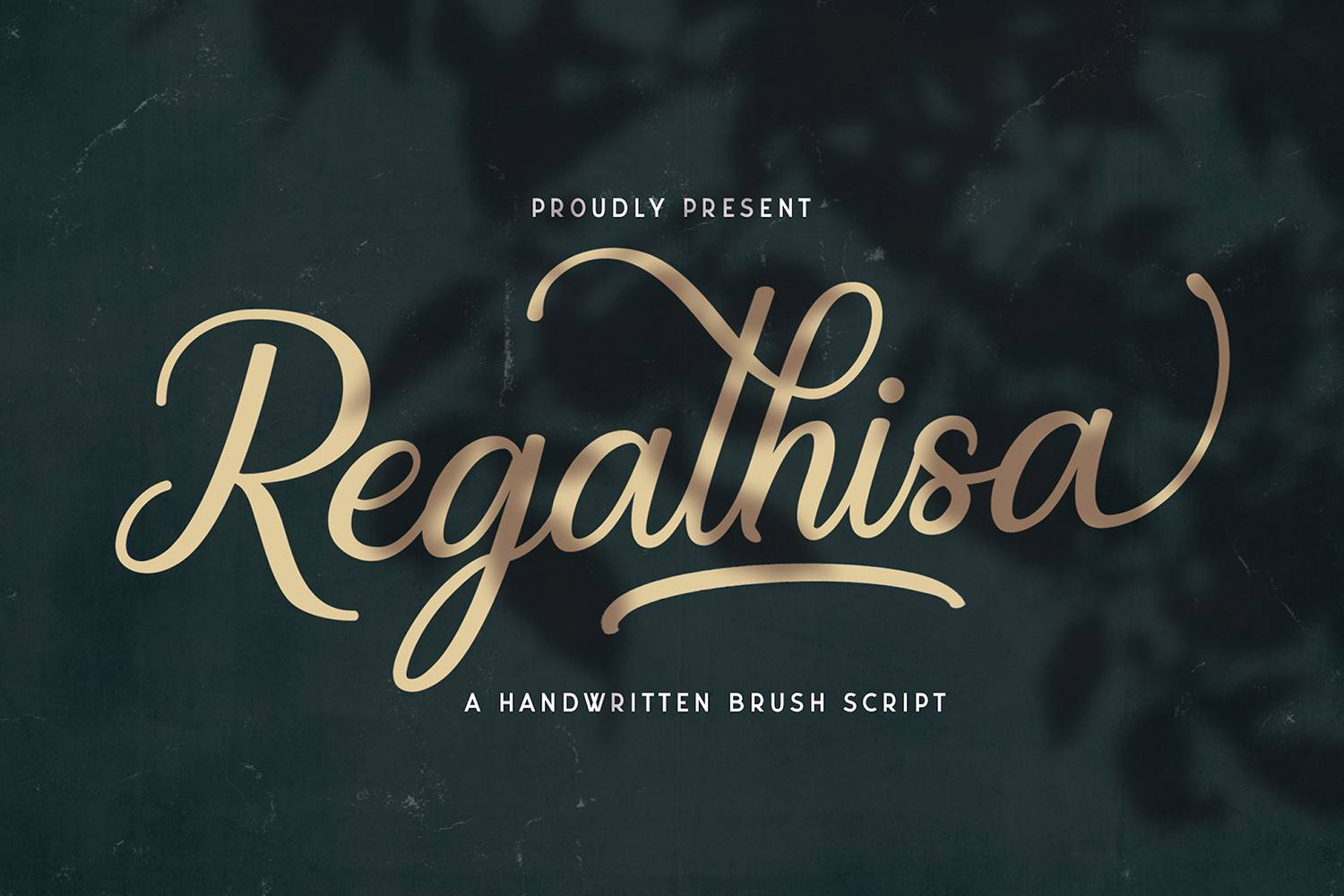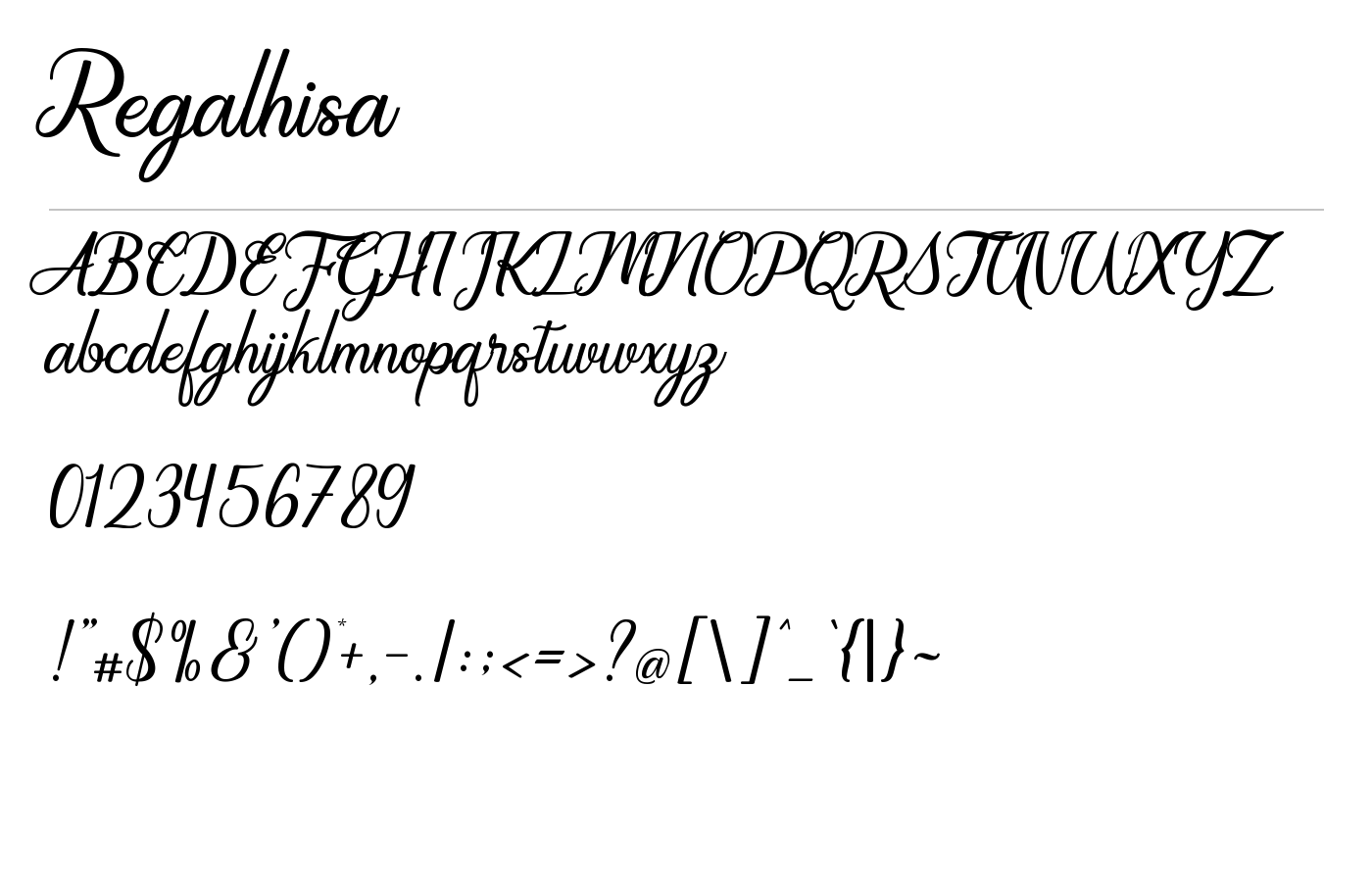
Regalhisa is an elegant script font with a smooth, flowing style that combines classic sophistication with a modern touch. Its slender, slightly condensed letterforms and delicate strokes make it ideal for luxury branding, wedding invitations, and upscale editorial projects. This font's graceful curves and refined personality convey a sense of romance and exclusivity, perfect for creating a stylish and memorable impression.
Regalhisa Font
About Regalhisa Font